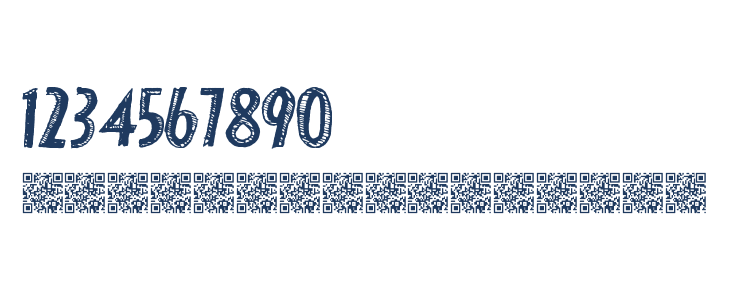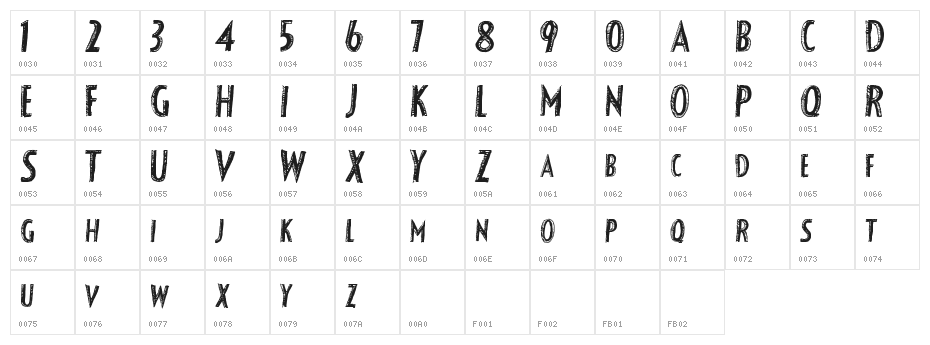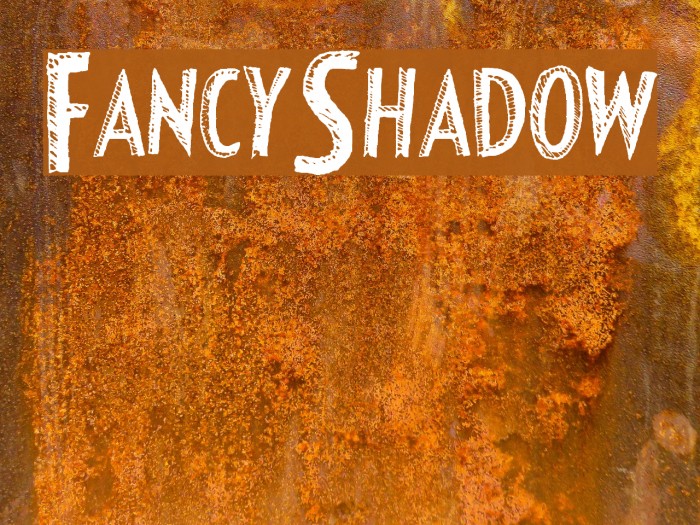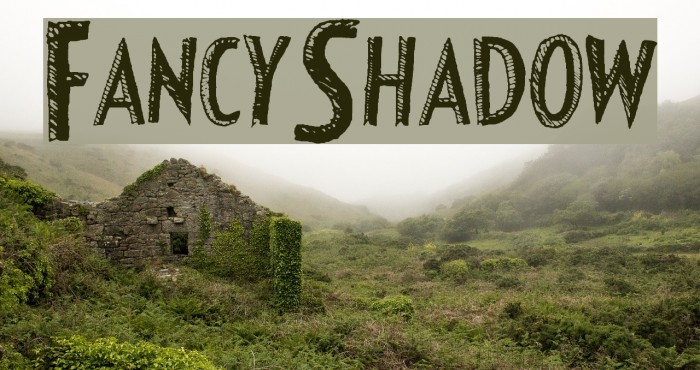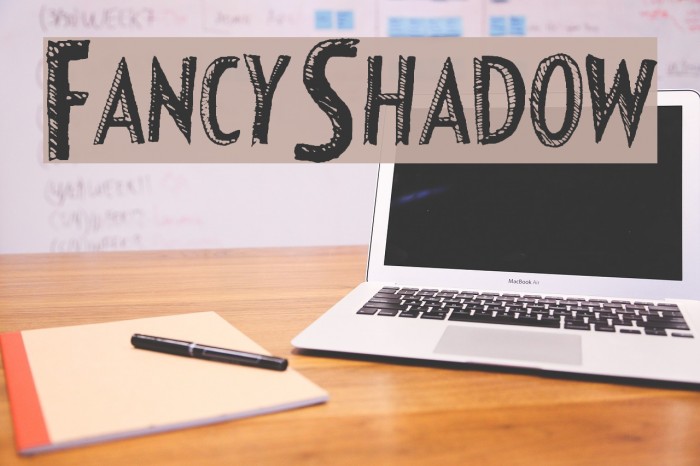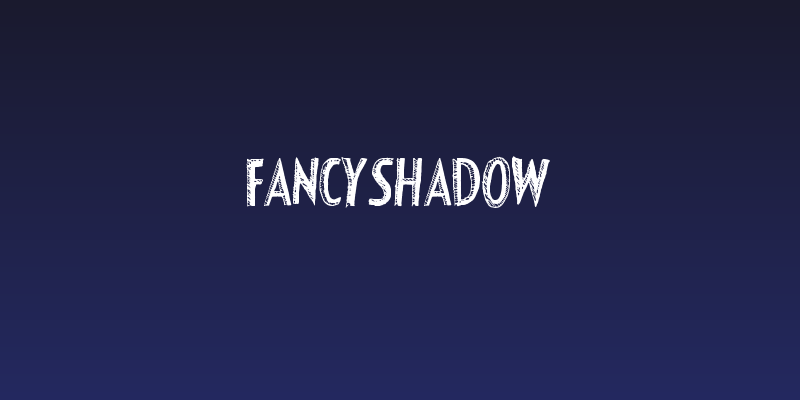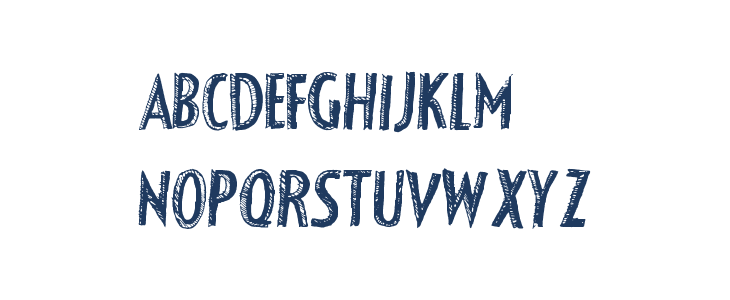
FancyShadow Font
FancyShadow Description
This font features a bold and playful design with a hand-drawn aesthetic. Each character is outlined with a shadow effect, giving it a three-dimensional appearance. The strokes are uneven, adding a whimsical and artistic touch. The uppercase and lowercase letters maintain a consistent style, while the numbers are equally bold and expressive. The font's unique shadowing and sketch-like quality make it stand out, perfect for creative and informal projects. Its decorative nature is ideal for designs that require a fun and engaging look.
Proposed ProjectsIdeal for children's book covers, playful posters, creative branding, and eye-catching headlines.